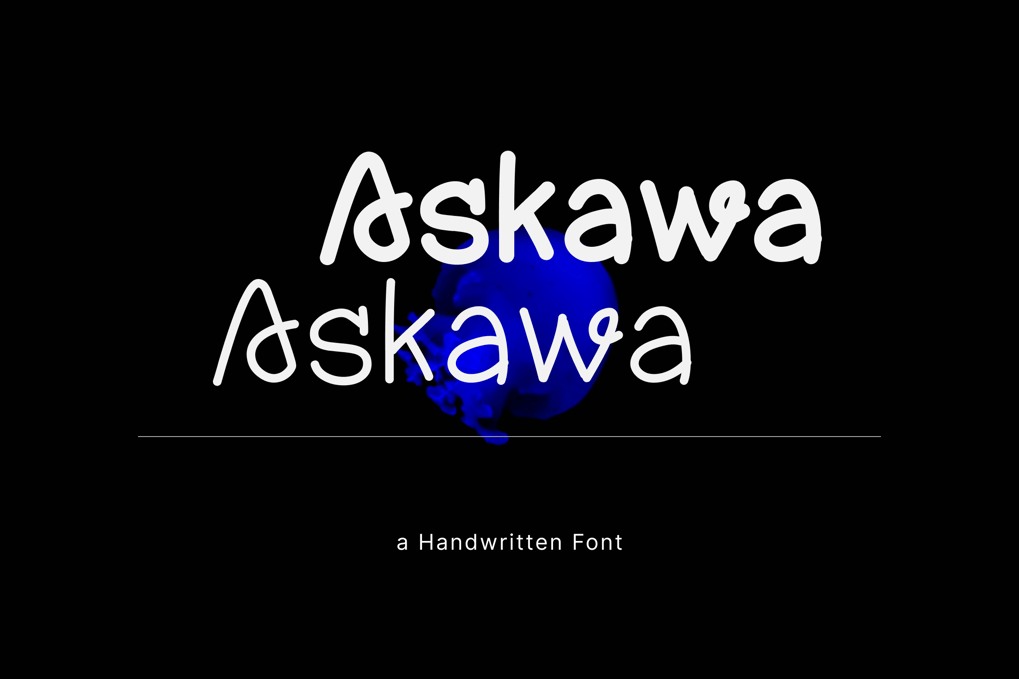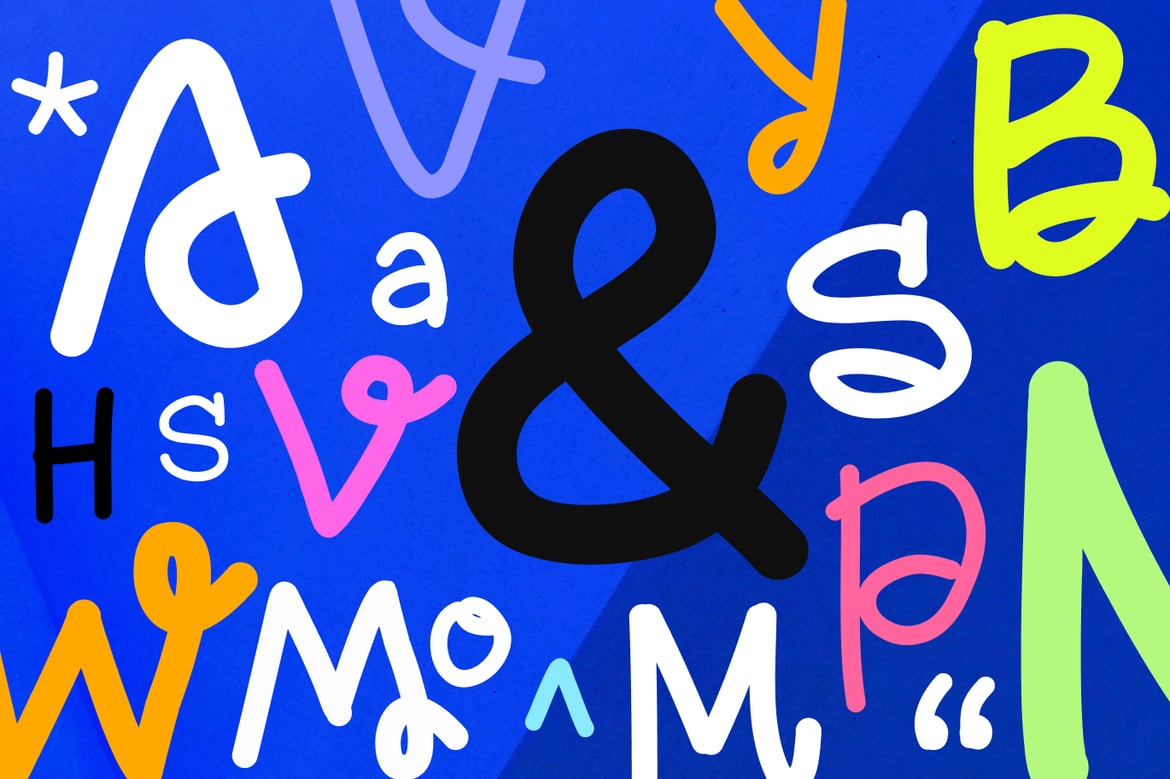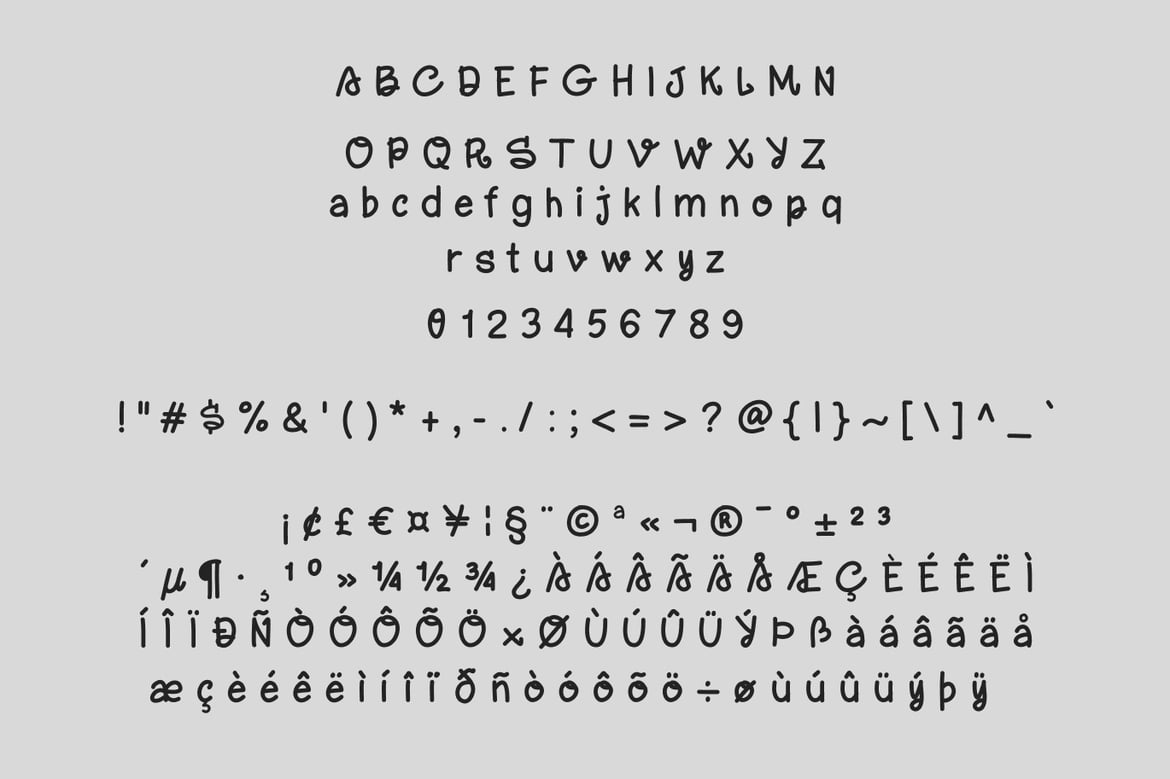
Askawa Hand-Drawn Font
Askawa, a hand-drawn typeface that combines the charm of handcrafted letters with a touch of uniqueness. Perfect for adding a personal and whimsical touch to your projects, Askawa is designed to stand out while maintaining readability and versatility.